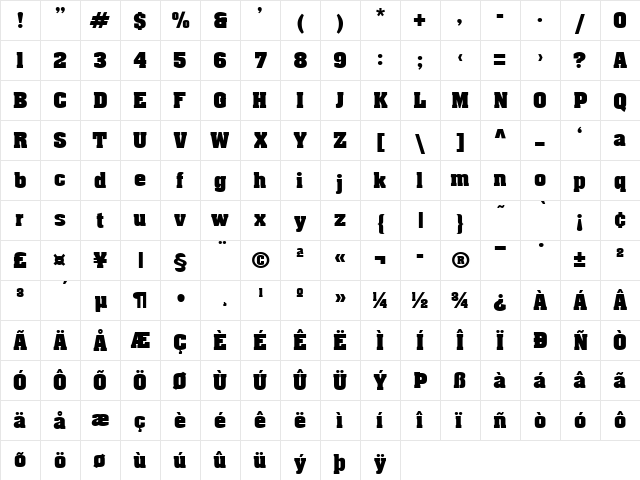
Apex Heavy Font Preview
Apex Heavy
Apex Heavy Font Details
Design Context for Apex Typeface
Apex is a composed and adaptable typeface that performs quietly and consistently across a wide range of design contexts.